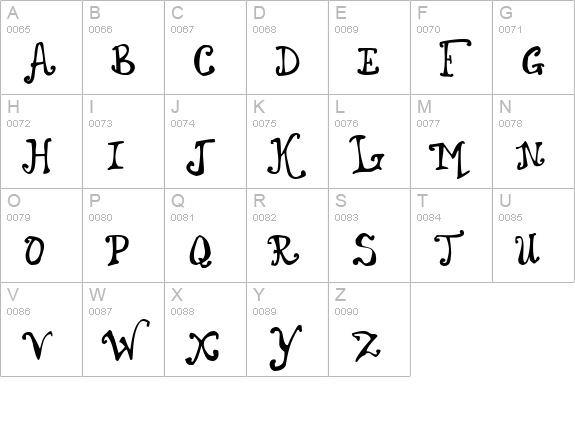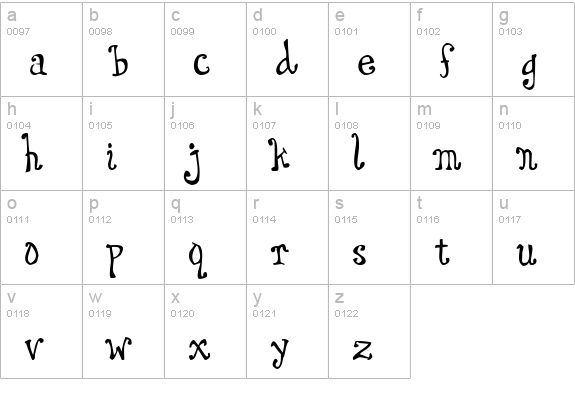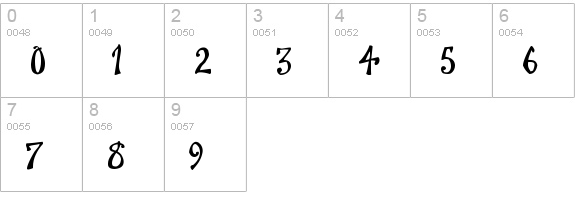
Dingle Berries Font Details
Dingle Berries font is a whimsical and playful typeface that exudes charm and character. With its quirky curves and unconventional letter shapes, this font is perfect for adding a touch of fun to your projects. Whether you're creating greeting cards, posters, or social media graphics, Dingle Berries will surely make a statement. The best part? Dingle Berries font is completely free to download at FontsMarket.com. Embrace your creativity and let this unique font inspire your designs. Stand out from the crowd and add a delightful twist to your typography with Dingle Berries. Download now and start creating with this free and delightful font!